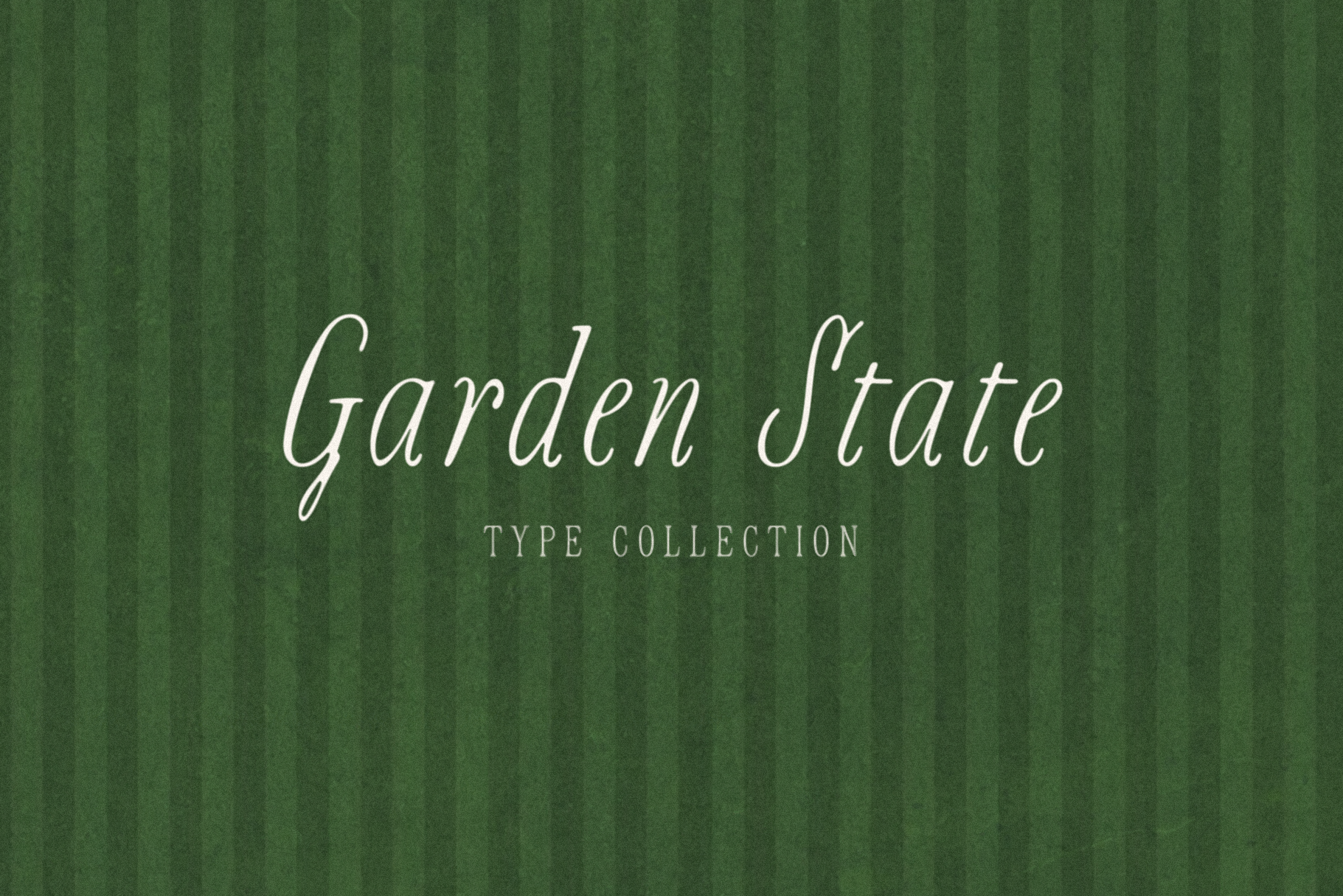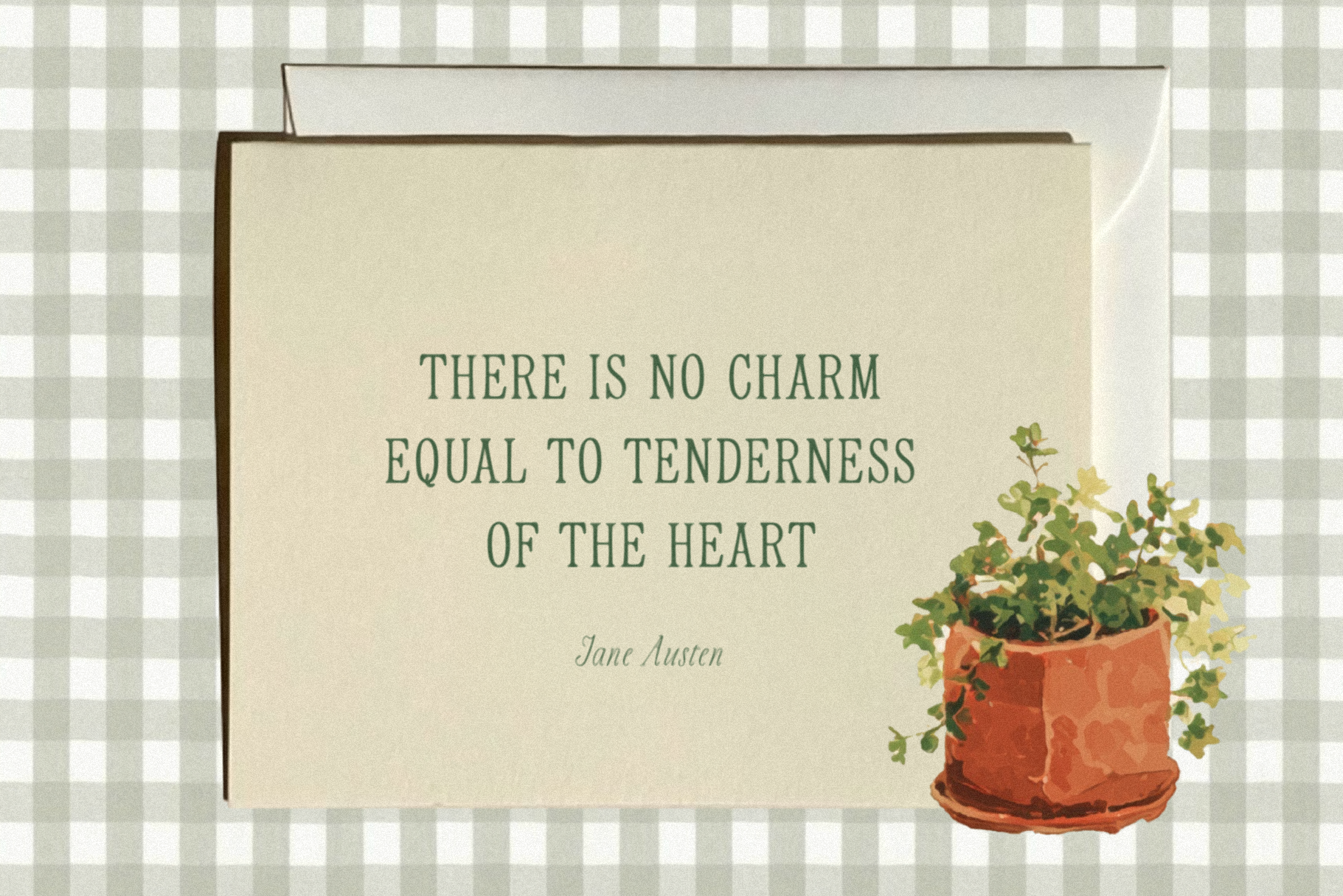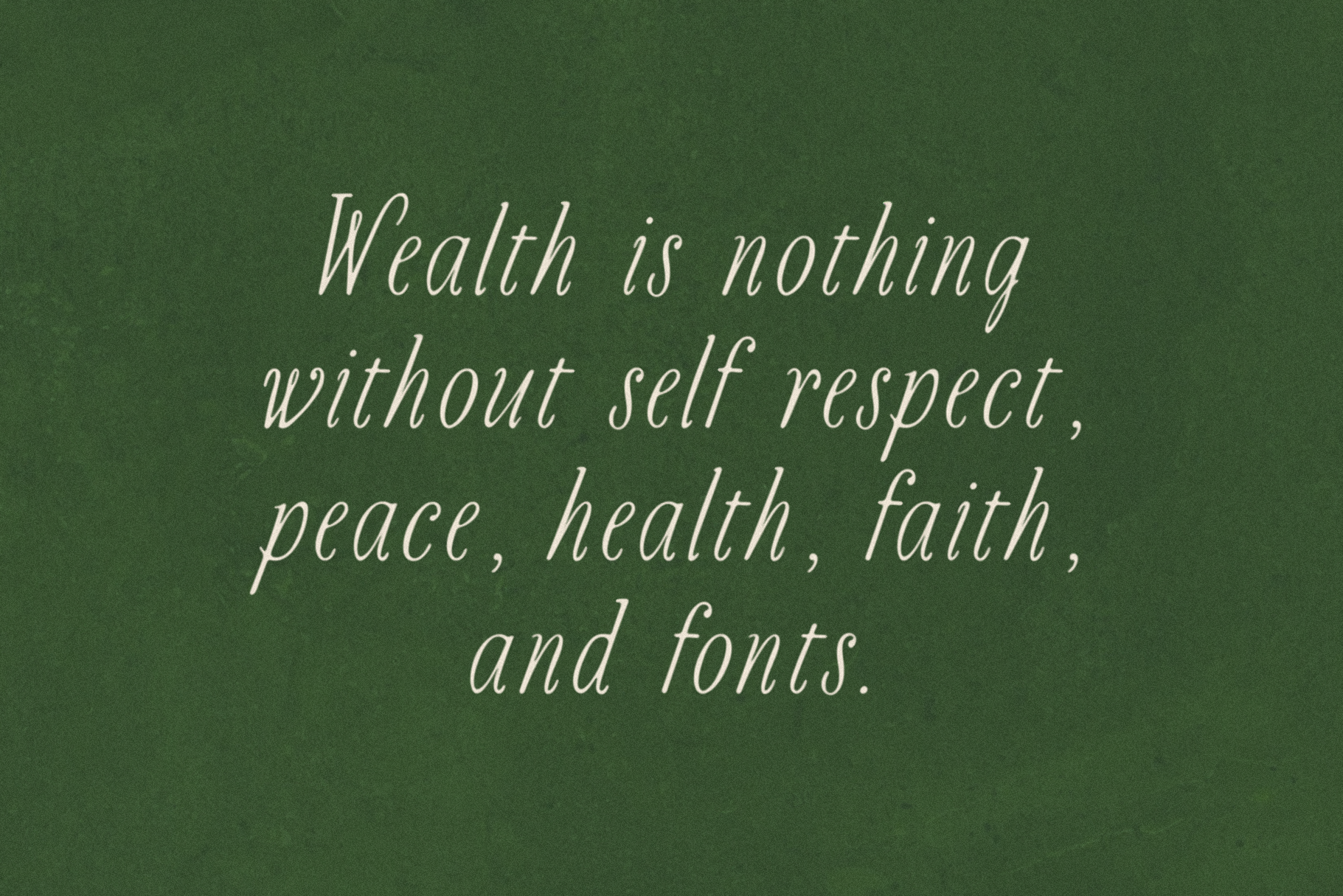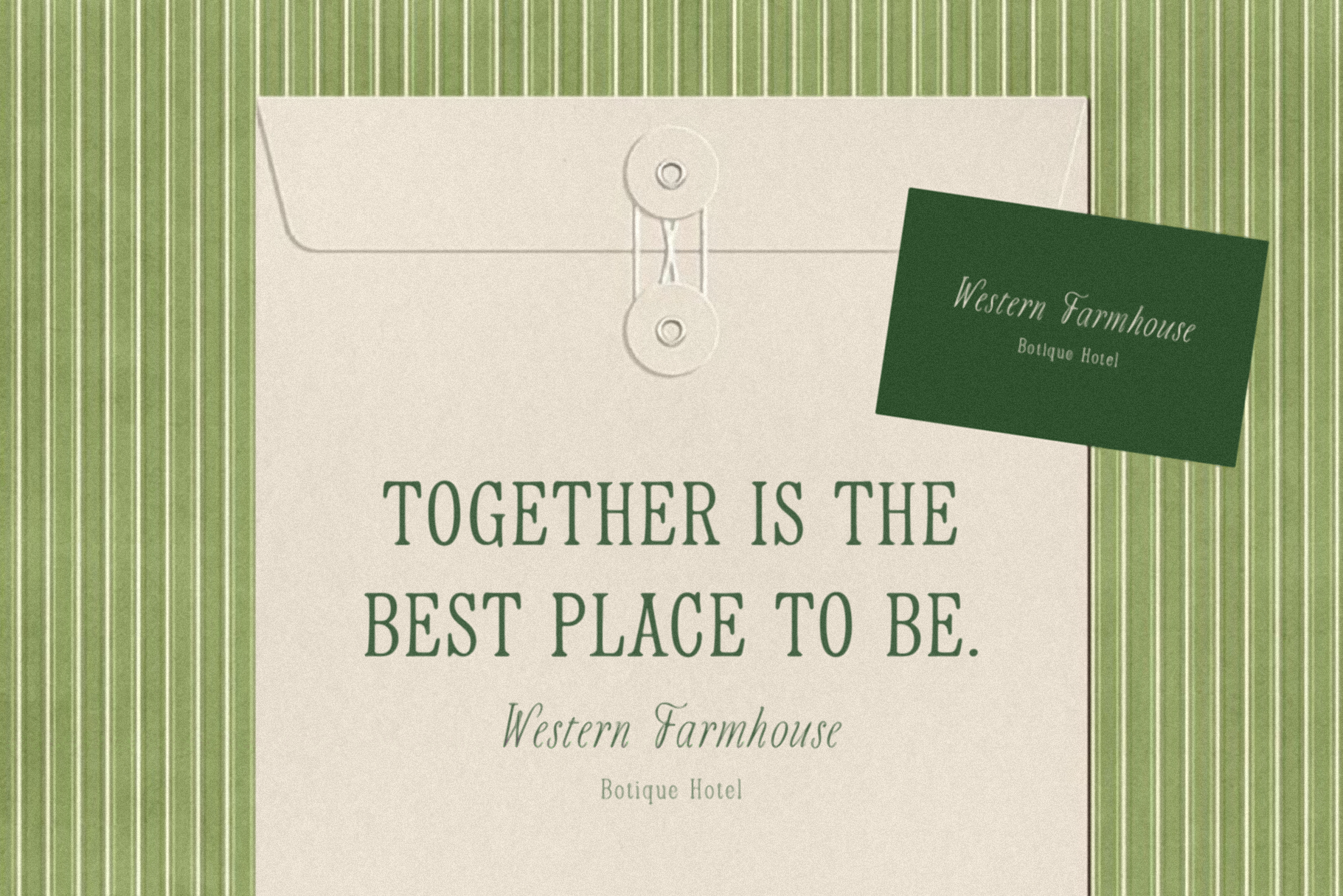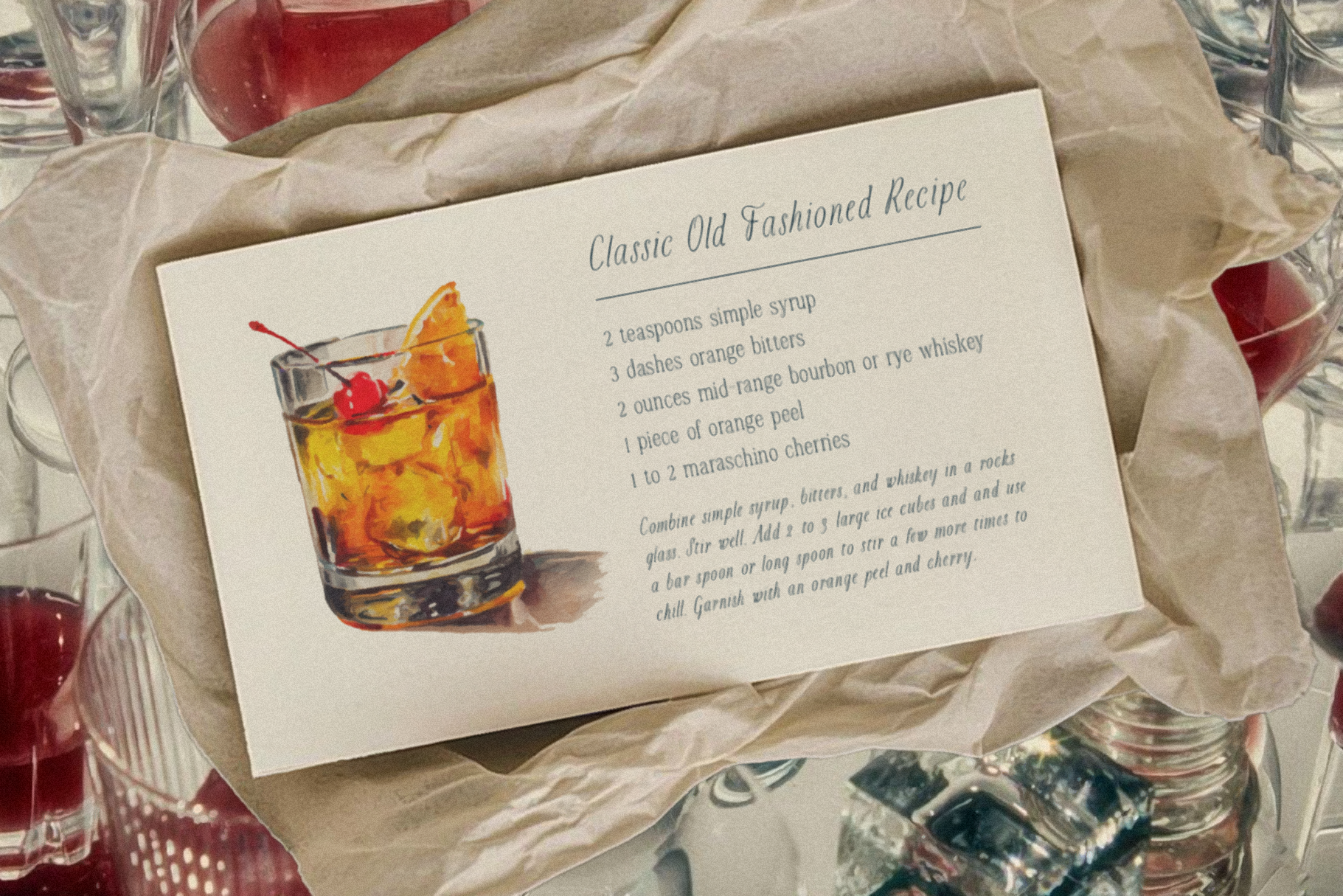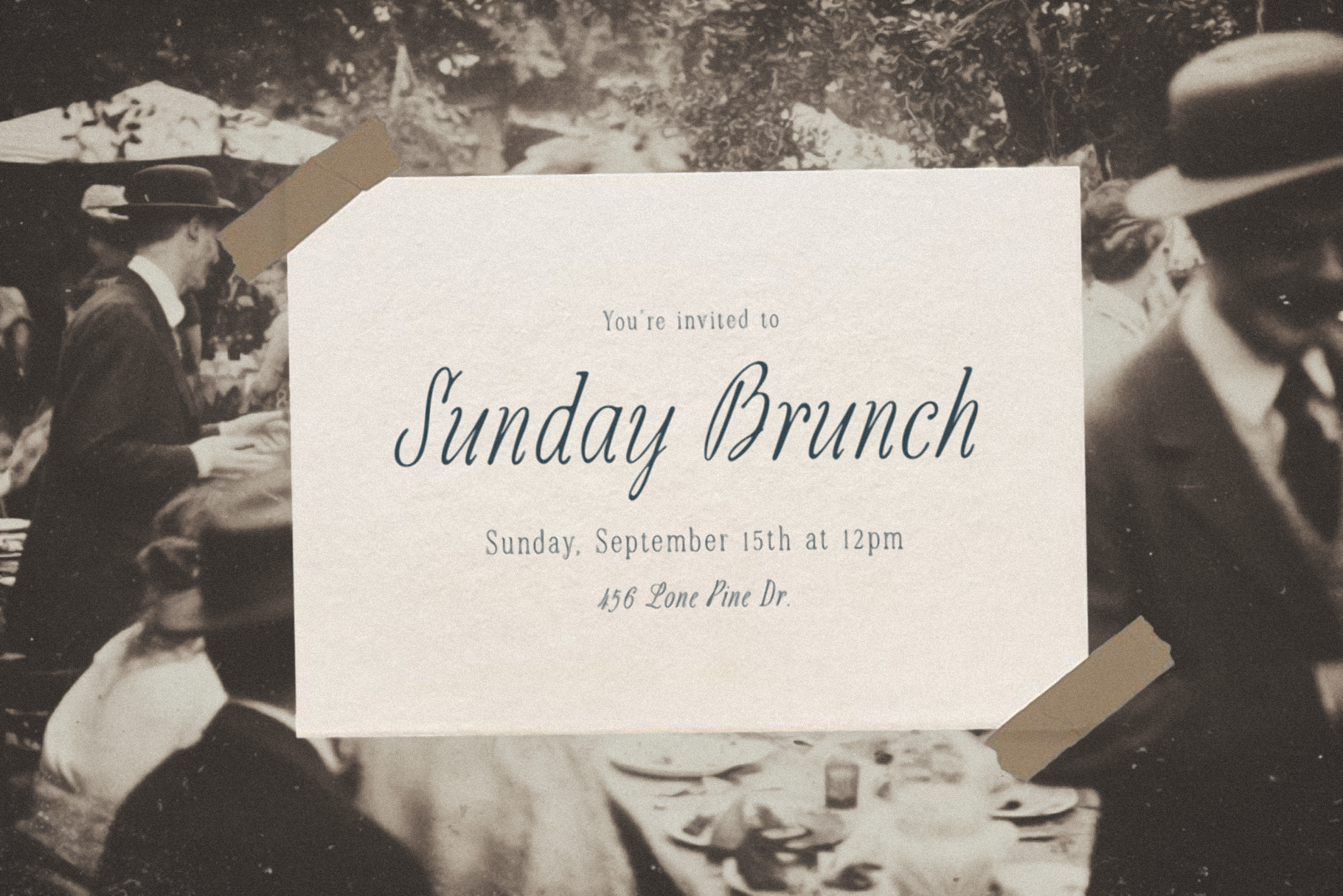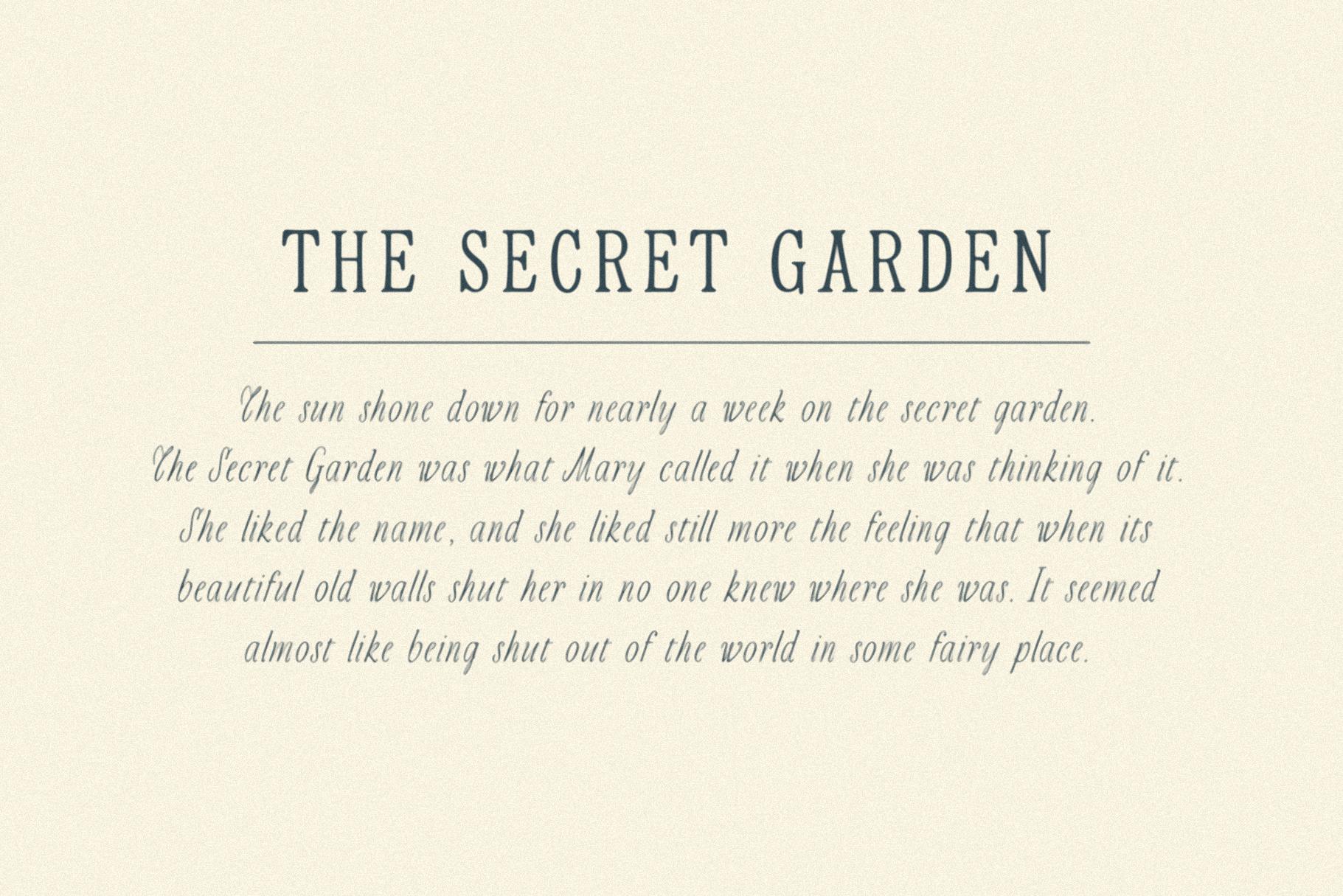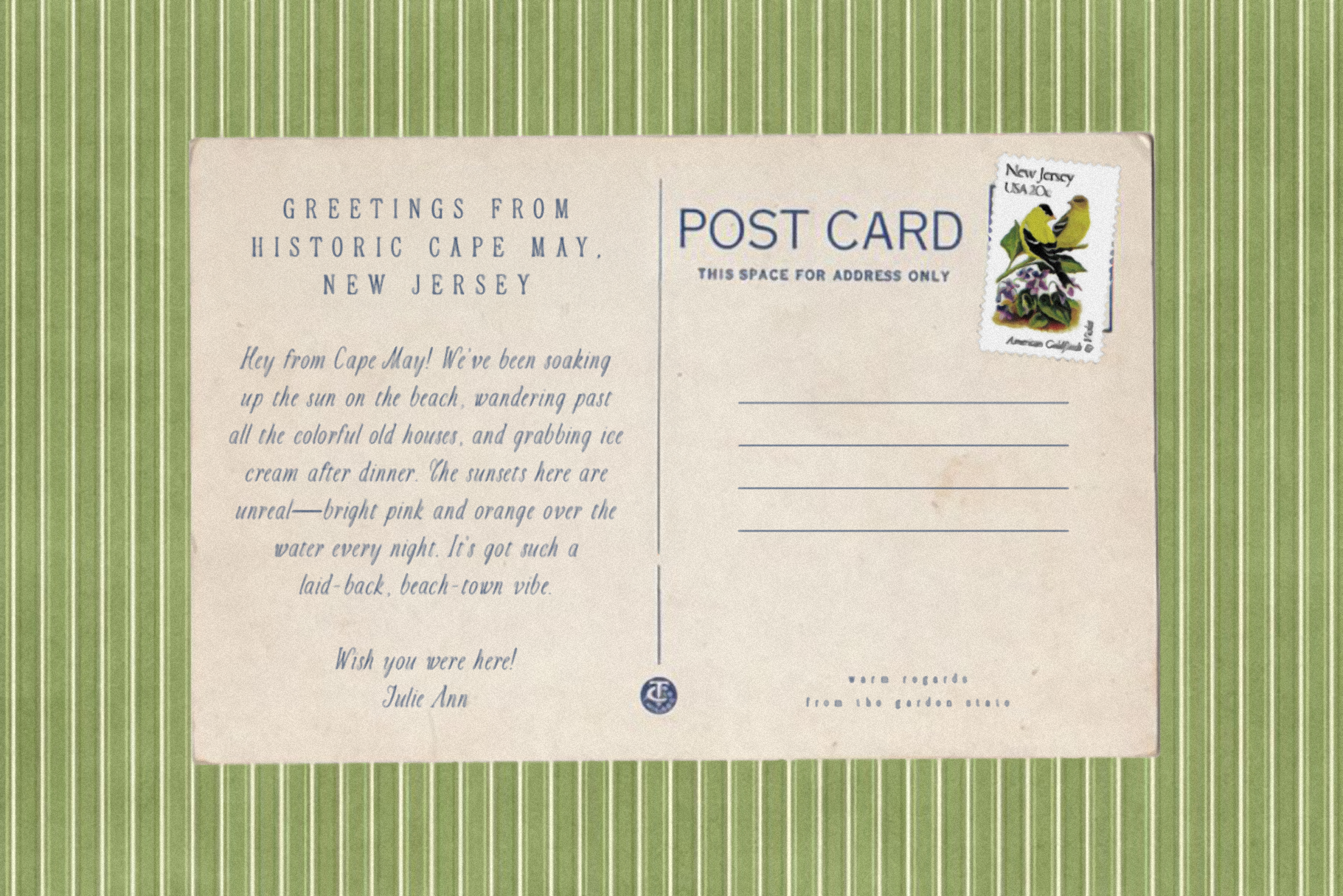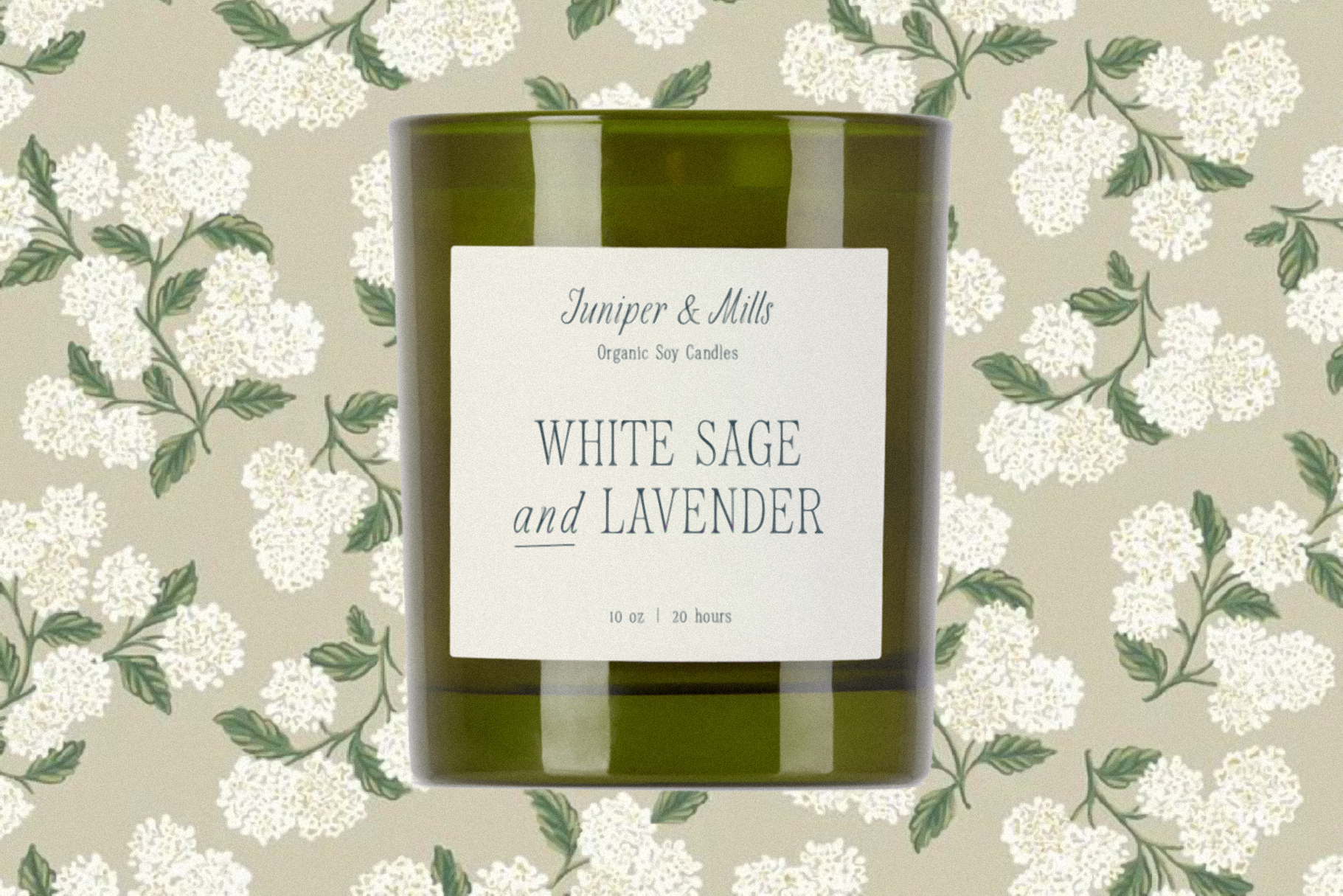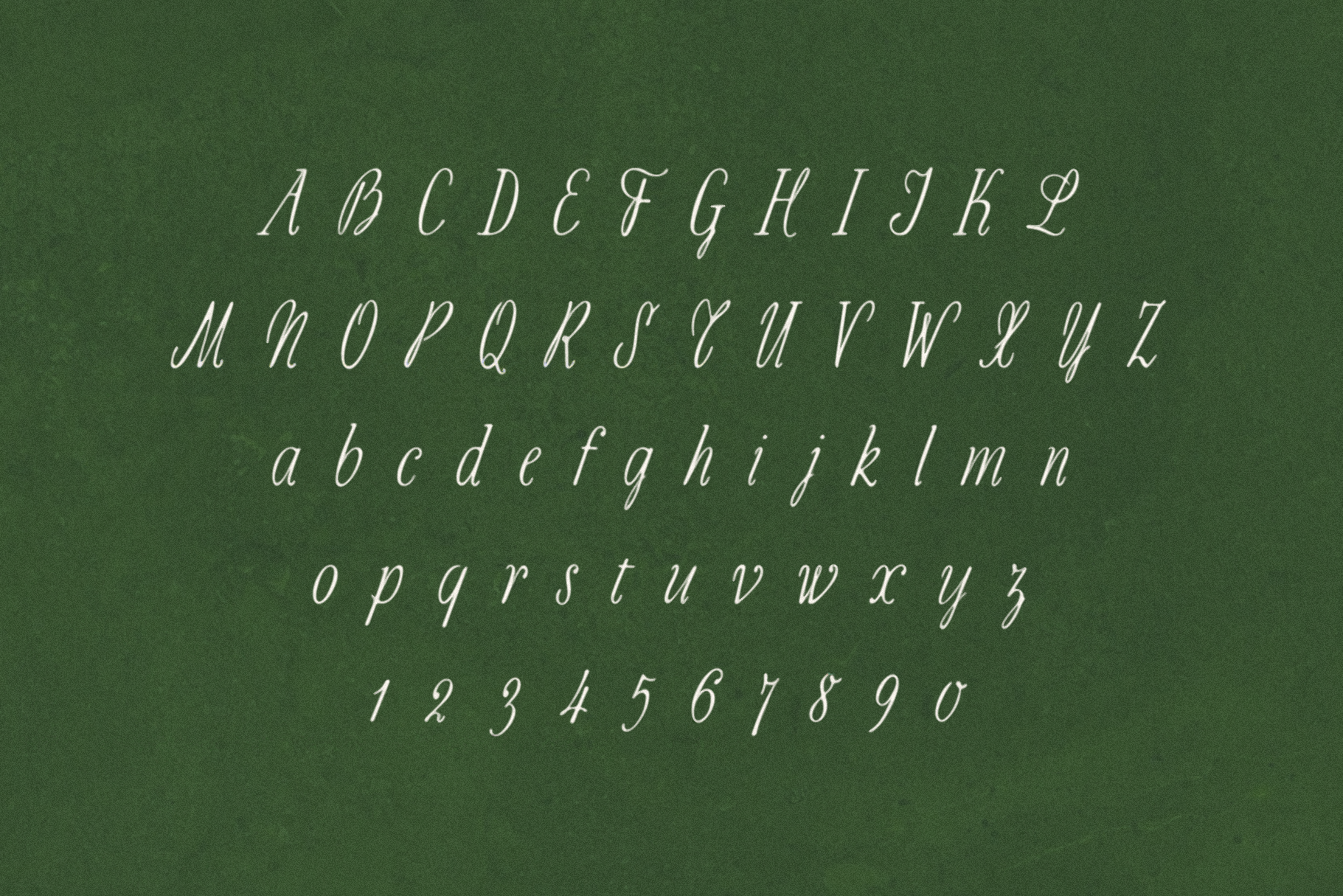
Garden State
GARDEN STATE – A handmade vintage type collection. Inspired by sophisticated garden parties of the early 1900s.
USE THESE FONTS FOR: ads, album covers, apparel, cards, flyers, invitations, logos, menus, merchandise, packaging, signage, web, and more.